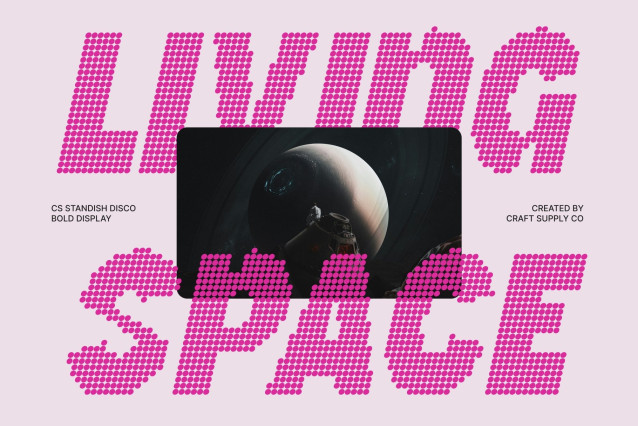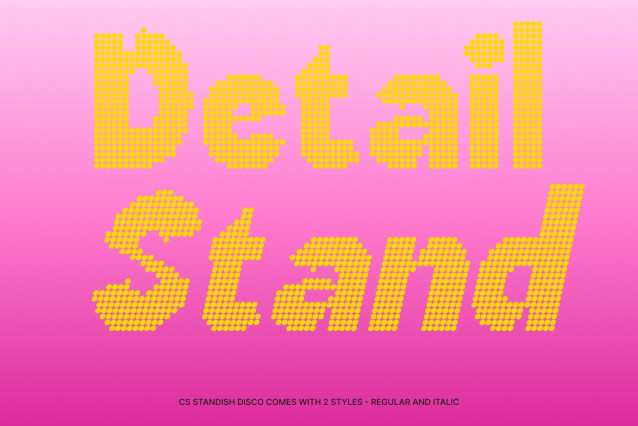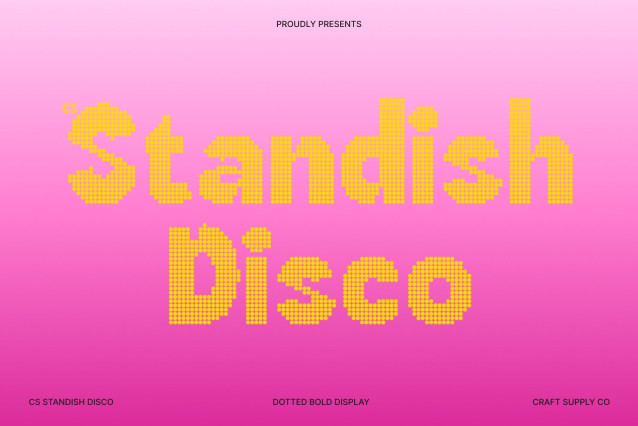
CS Standish Disco – Modern Simplicity with a Grotesque Edge
Bold Sans Serif with Contemporary Disco Style
This is a modern sans-serif font reimagined with a vibrant dotted texture that brings energy and personality to its clean, structured forms. The bold strokes and precise construction create a confident, contemporary look, while the disco dot effect adds a playful sparkle that instantly elevates any layout.
Grotesque Influence with Cheerful Character
Inspired by classic grotesque typography, this font blends geometric precision with subtle humanist warmth. The dotted styling softens its modern structure, giving the typeface a friendly and expressive feel while preserving its professional clarity and versatility.
Clean Design with High Visual Impact
Its strong strokes and consistent spacing ensure excellent readability, even with the decorative dot treatment. The result is typography that remains clear and impactful while radiating fun, rhythm, and visual excitement.